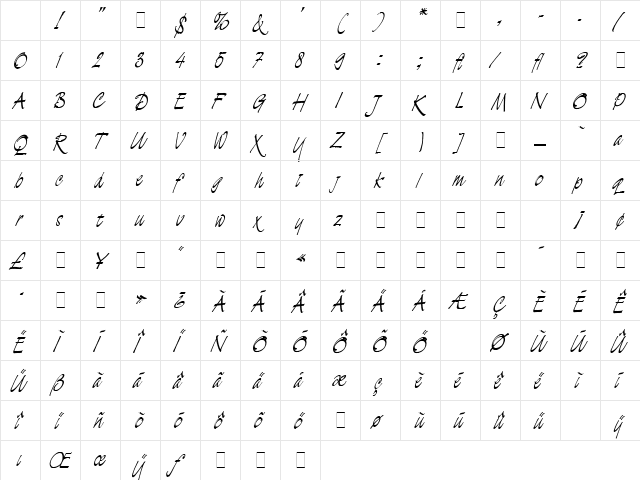
Complete Demian LET Let Plain glyph index. Displaying only characters natively supported by Demian LET Let Plain font.
Demian LET is a composed and adaptable typeface that performs quietly and consistently across a wide range of design contexts.